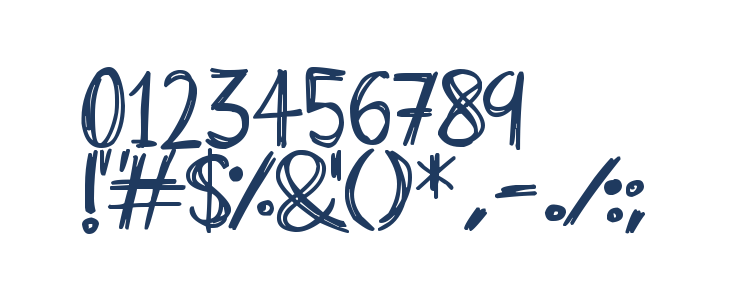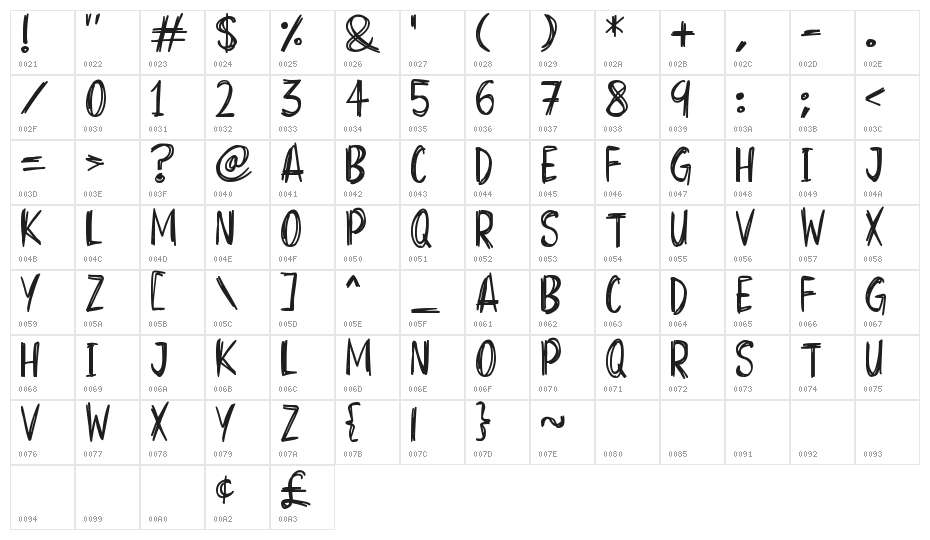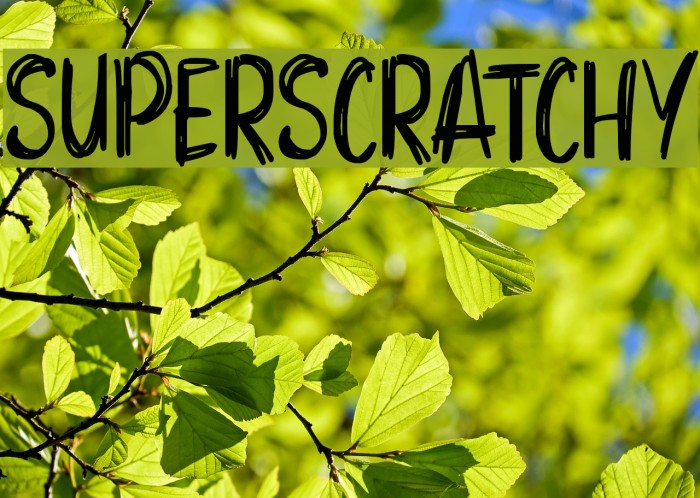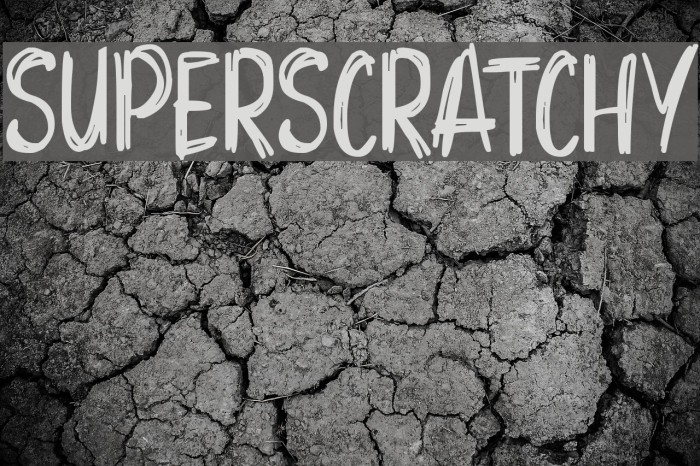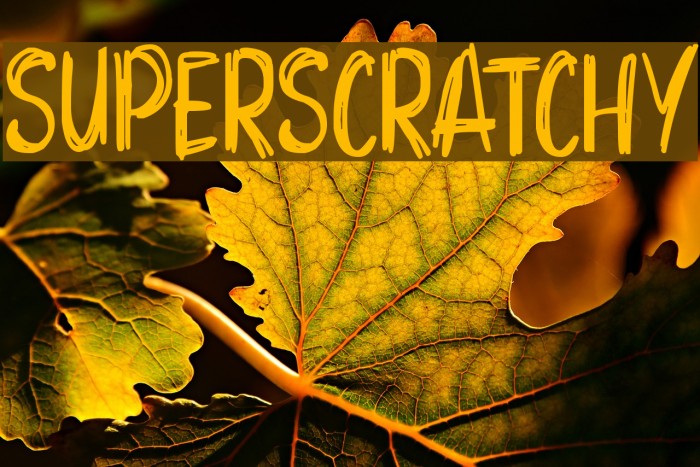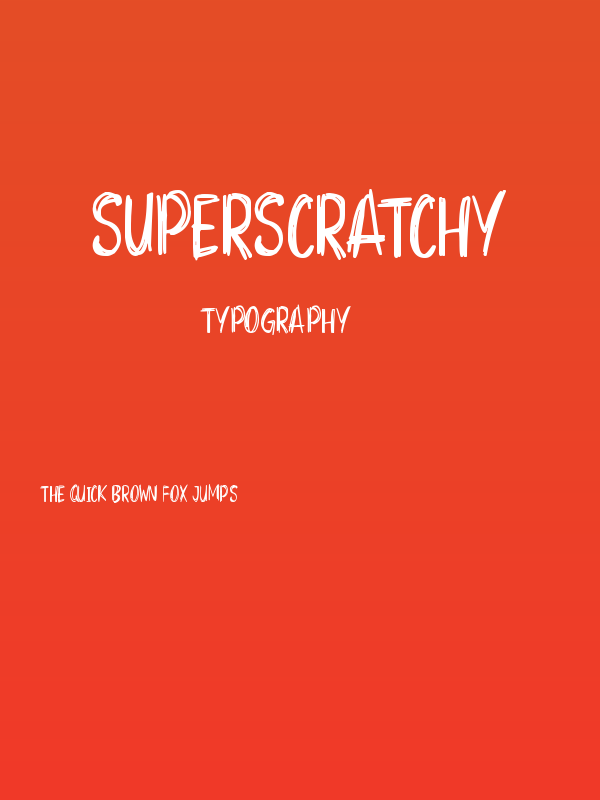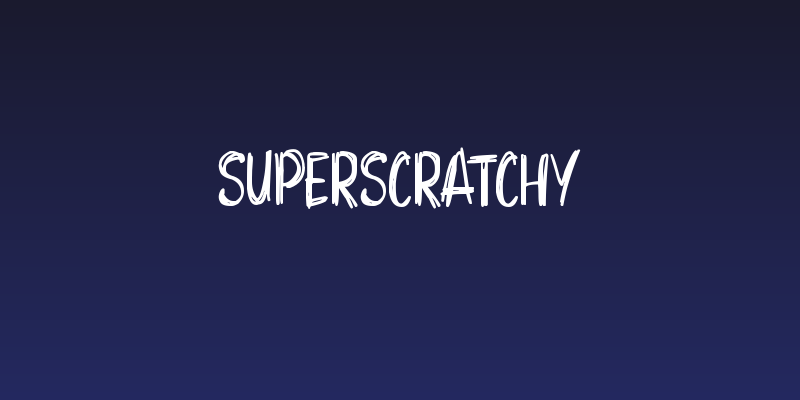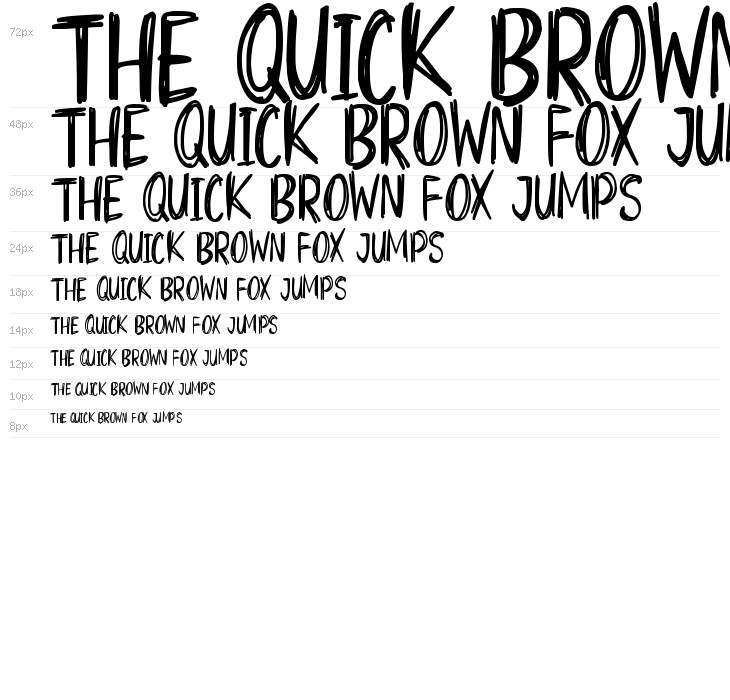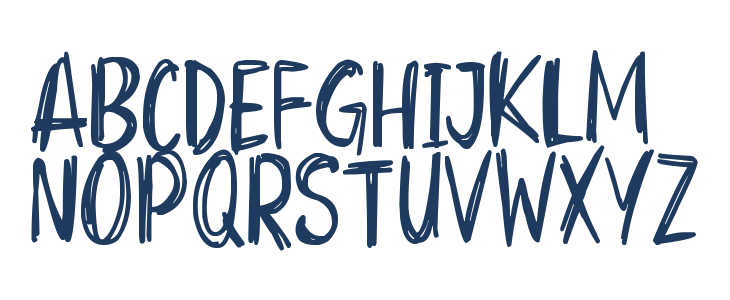
Superscratchy Font
Superscratchy Description
This font features a bold, hand-drawn style with a scratchy, textured appearance. The letters are slightly irregular, giving it a playful and informal feel. The uppercase and lowercase letters are consistent in style, with a noticeable emphasis on vertical strokes. Numbers and special characters maintain the same hand-crafted look, adding to the overall cohesive design. The font's unique character makes it stand out, ideal for projects that require a touch of creativity and individuality.
| Proposed Projects | Ideal for comic books, children's book covers, posters, and creative branding projects. |